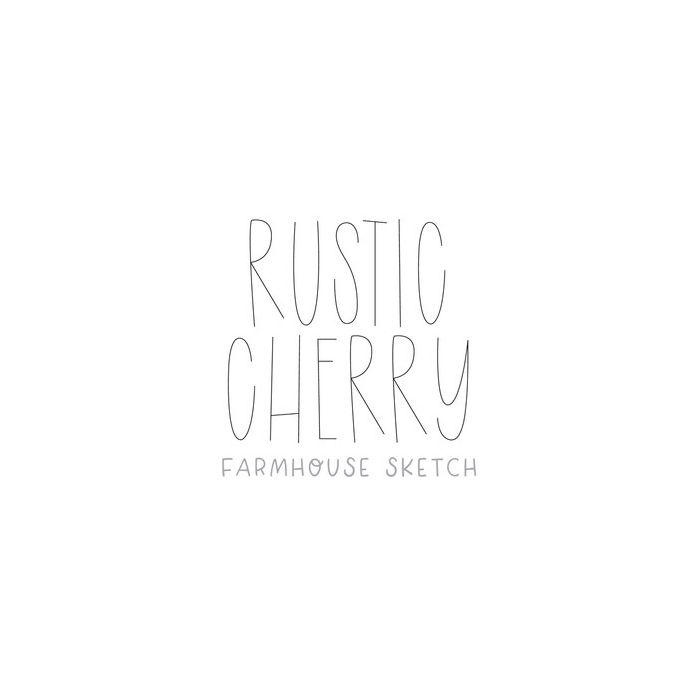
BFC Rustic Cherry Farmhouse Sketch Font
Rustic Cherry Sketch is a farmhouse sketch font. Includes intl characters! We have a matching cut font called "Rustic Cherry".